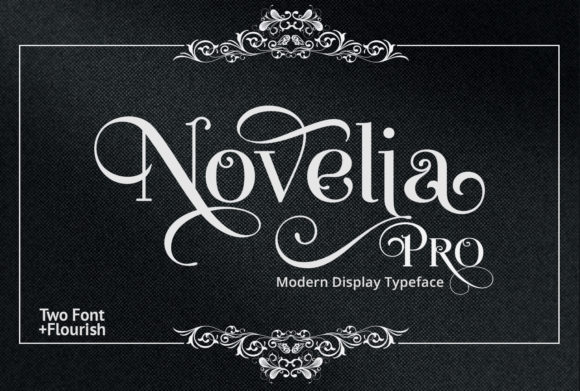
Novelia Pro: A Display Font for Stunning Creative Work
Every designer knows the search for that perfect typeface—the one that feels both distinctive and versatile, capable of elevating a project from good to unforgettable. Novelia Pro is an incredibly unique display font, masterfully designed to become a true favorite. This font has the potential to bring each of your creative ideas to the highest level, offering a blend of elegance and modern appeal that’s hard to find.
As a premium font, Novelia Pro stands out in the crowded world of typography. It’s crafted with careful attention to detail, featuring clean lines, balanced proportions, and a personality that’s both refined and approachable. Whether you’re working on a sleek brand identity or a dynamic poster design, this typeface provides the visual impact needed to make your work shine.
Where Novelia Pro Truly Excels
This creative font isn’t just beautiful—it’s practical. Its design flexibility makes it suitable for a wide range of applications, helping designers maintain visual consistency across different mediums. Consider using Novelia Pro for projects like:
Its versatility extends to digital products and merchandise as well. Think about how a well-chosen display font can enhance the perceived value of a digital download, a t-shirt design, or a set of custom stationery. Novelia Pro helps unify these elements, ensuring your work looks intentional and professionally crafted.
Tips for Using This Typeface Effectively
While a font like Novelia Pro is designed to impress, using it effectively requires a bit of strategy. First, always test readability at the size you intend to use. Display fonts are perfect for headlines and large text, but for body copy, pairing it with a complementary sans serif or serif font for readability is key. A strong font pairing can create hierarchy and guide the viewer’s eye through your design.
Next, match the font’s mood to your project’s message. The elegant curves of Novelia Pro might suit a luxury brand or a creative agency, while its modern structure could work for a tech startup or a fashion label. Review all the available styles and weights within the family to see how they can be used for emphasis and variation.
Choosing the right typeface is about more than just aesthetics; it’s about communication, consistency, and creating a lasting impression. A well-designed font like Novelia Pro acts as a foundation for your creative vision, helping to translate ideas into polished, professional reality. When your typography is strong, your entire project feels more cohesive and trustworthy to the viewer.